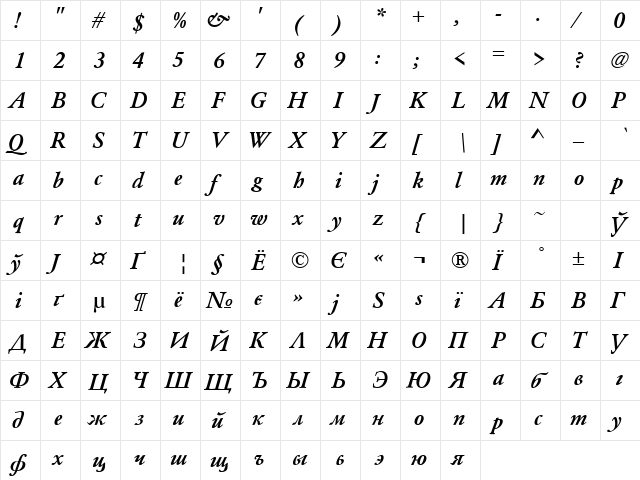
Garamond_A.Z_PS Bold-Italic
Design Context for Garamond_A.Z_PS Typeface
Garamond_A.Z_PS offers clean, dependable letterforms without strong stylistic allegiance, making it a practical choice for designers who need flexibility. The slanted form adds forward momentum and visual energy. Its bold stroke weight gives it real presence on the page.
Pro Tip: Use Garamond_A.Z_PS for emphasis, pull quotes, and subheadings where its slanted energy can add rhythm to the layout.